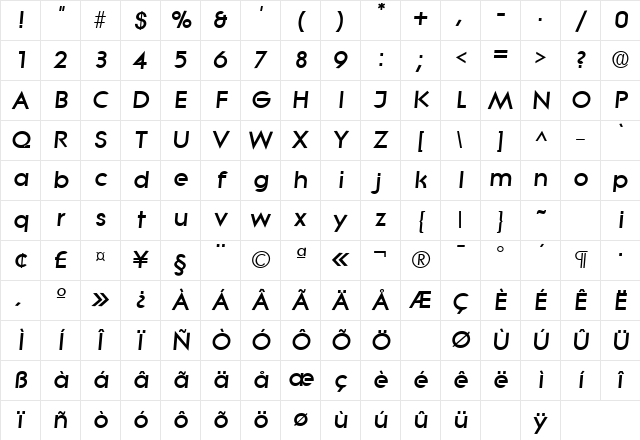
Litera Bold Italic
Design Context for Litera
Litera is a composed and adaptable typeface that performs quietly and consistently across a wide range of design contexts. The slanted form adds forward momentum and visual energy. Its bold stroke weight gives it real presence on the page.
Pro Tip: Use Litera for emphasis, pull quotes, and subheadings where its slanted energy can add rhythm to the layout.